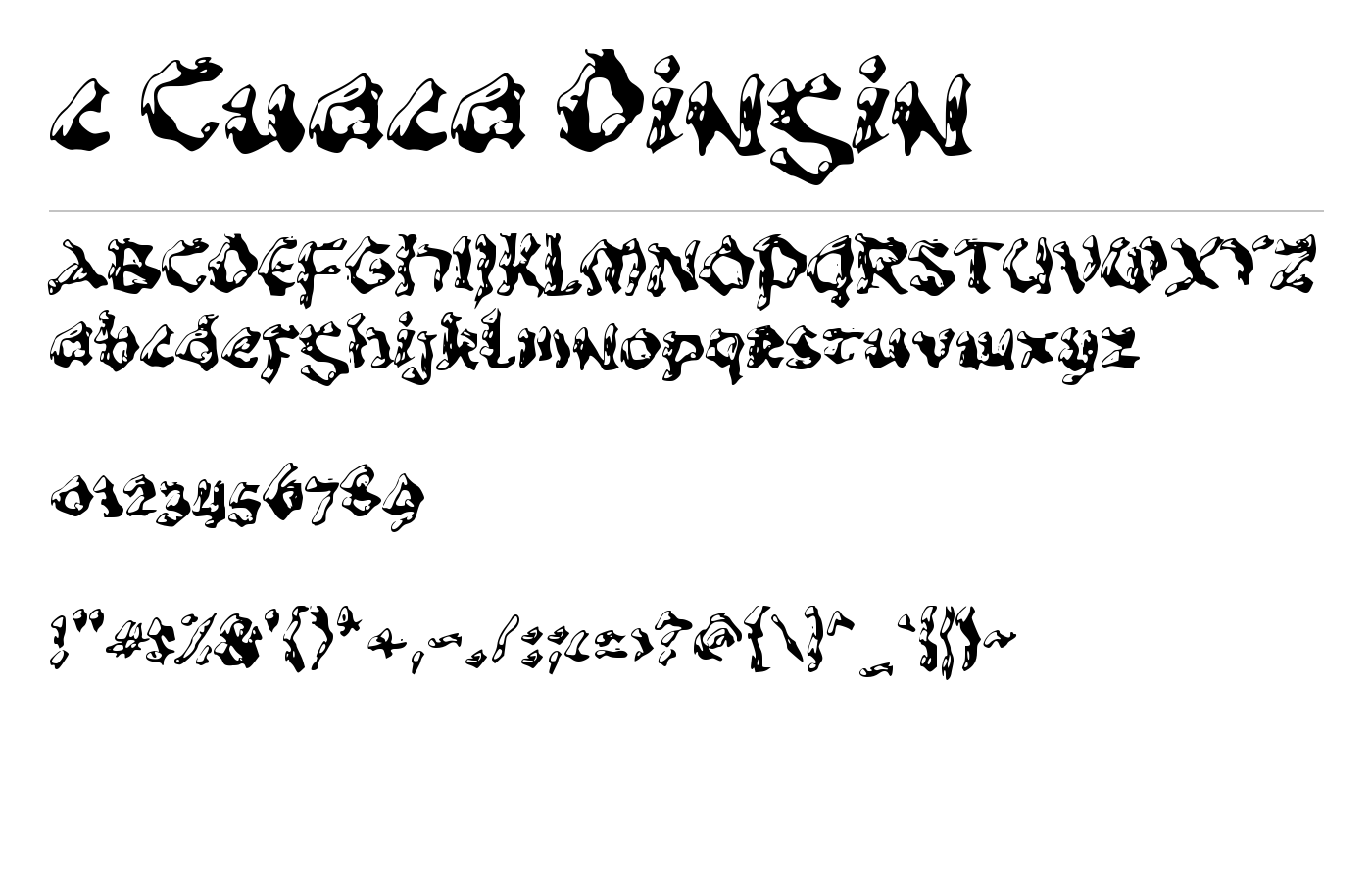
Cuaca Dingin is a highly decorative and organic display font with a textured, almost melting appearance that gives it a bold, experimental vibe. Its irregular shapes and rugged contours make it best suited for creative headlines, posters, or branding that seek to convey a raw, artistic, and unconventional mood. This font is an excellent choice for projects that want to stand out with a distinctive, edgy personality rather than readability for long text.
c Cuaca Dingin Font
| Designer | Wahyu Eka Praasetya |